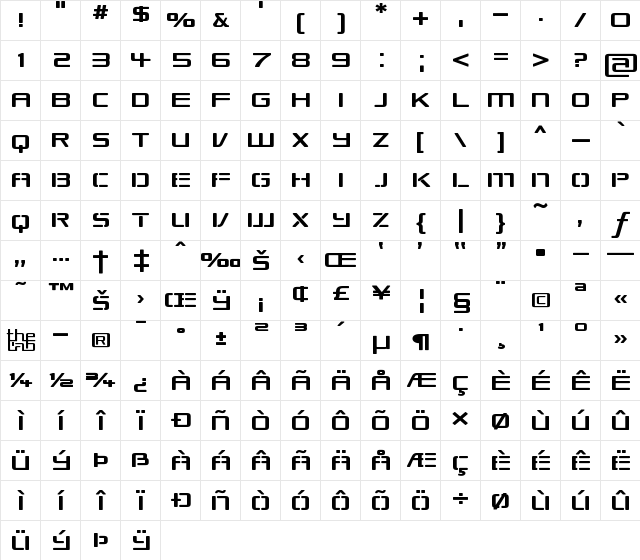
Republikaps Exp Regular Font Preview
Republikaps Exp Regular
Republikaps Exp Regular Font Details
| Designer | Apostrophe (') |
Design Context for Republikaps Exp Typeface
Republikaps Exp is a composed and adaptable typeface that performs quietly and consistently across a wide range of design contexts.